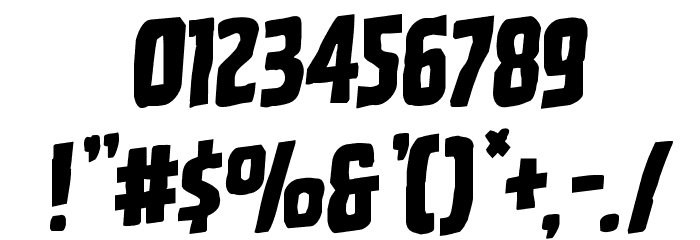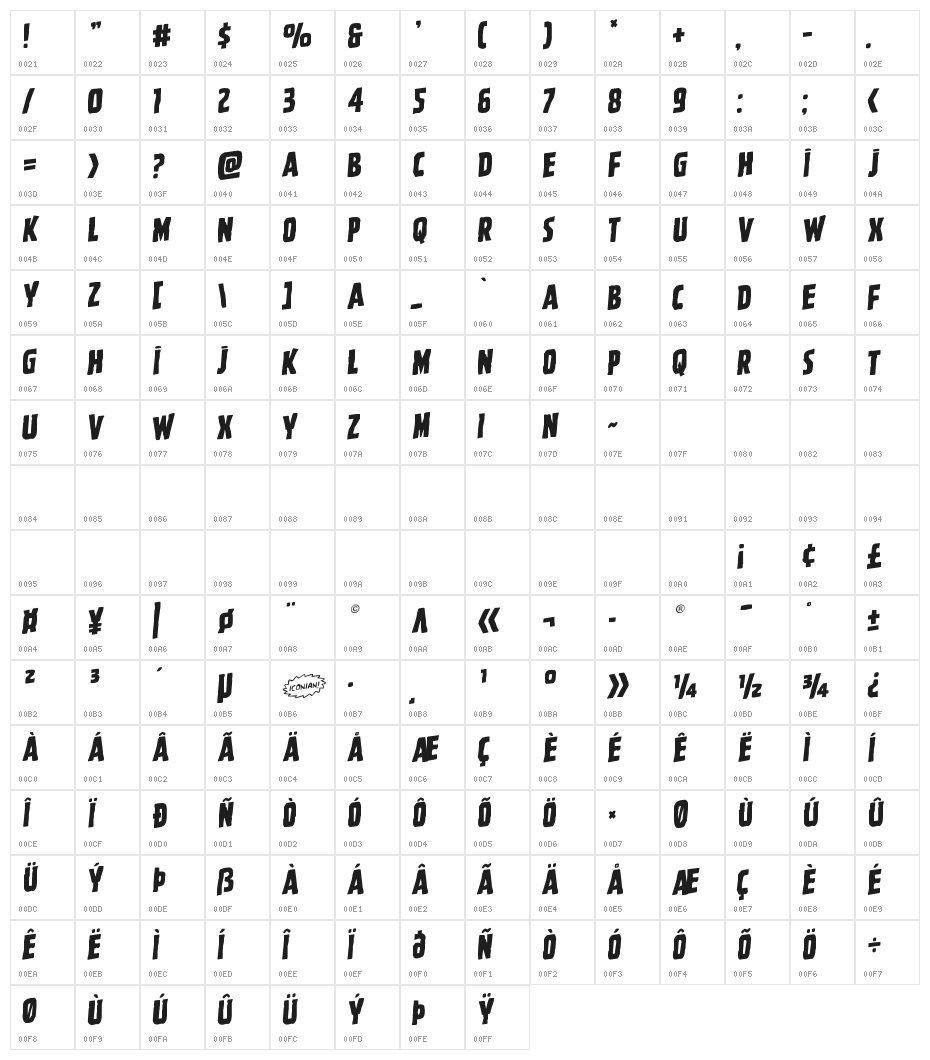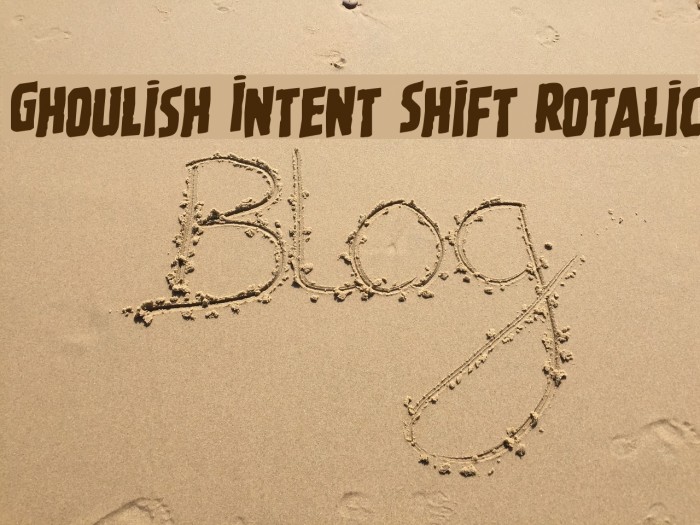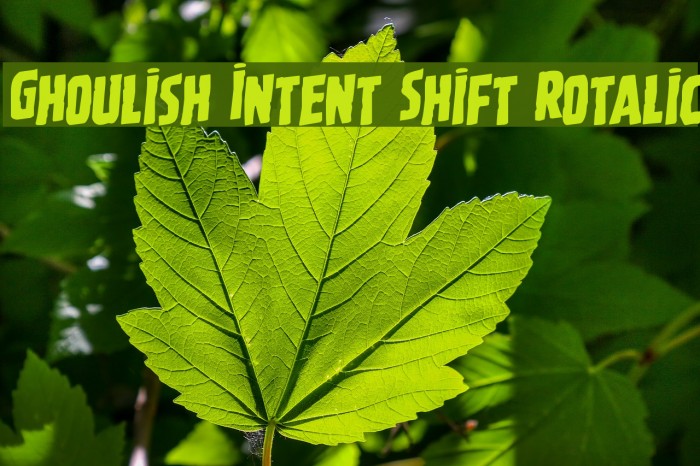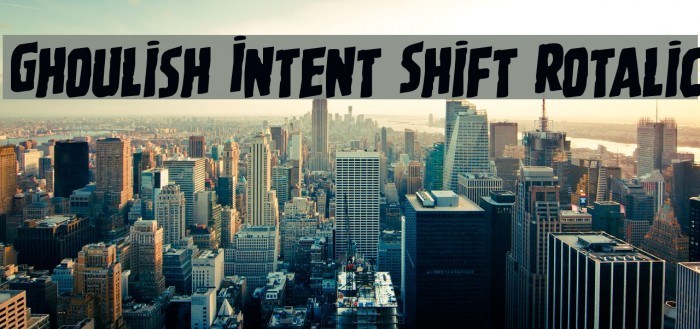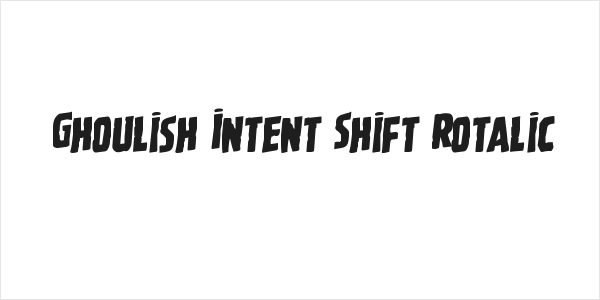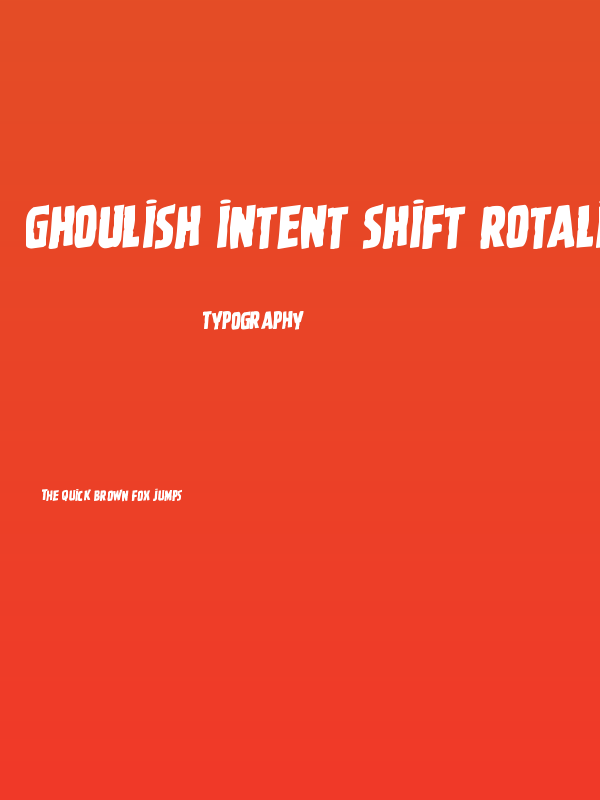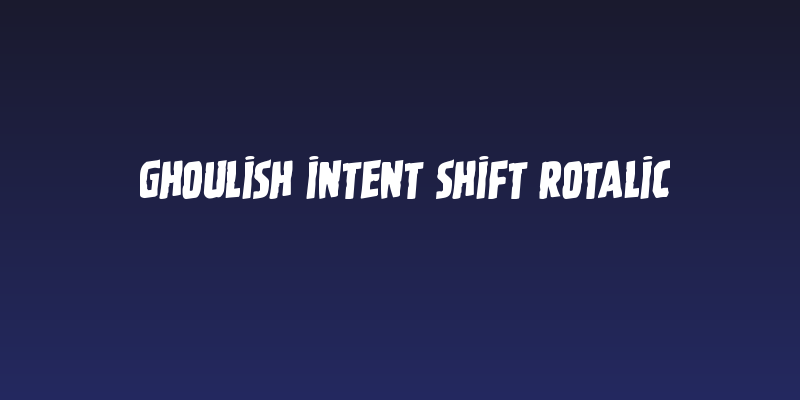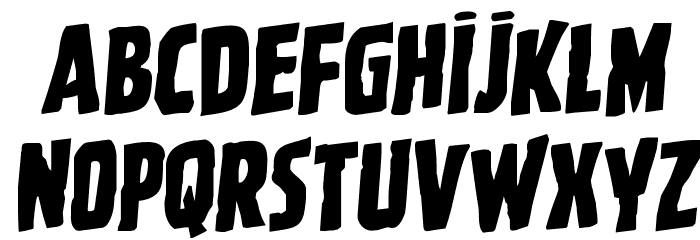
Ghoulish Intent Shift Rotalic Font
Ghoulish Intent Shift Rotalic Description
This font features a bold and dynamic style with a distinct slant, giving it a sense of movement and energy. The characters are thick and slightly irregular, adding a playful and edgy feel. The uppercase and lowercase letters maintain a consistent weight, while the numbers and special characters complement the overall design. The font's unique appearance makes it stand out, perfect for projects that require a strong visual impact.
| Proposed Projects | Ideal for Halloween-themed designs, posters, video game graphics, and branding that requires a bold statement. |